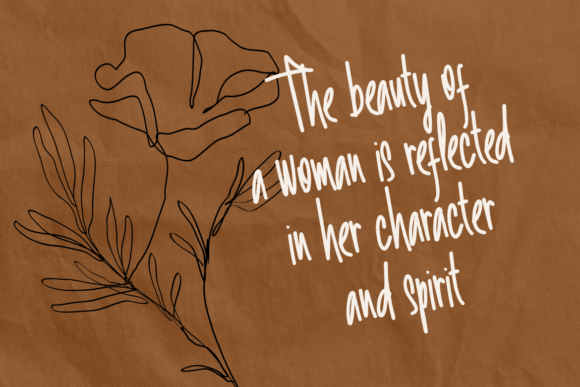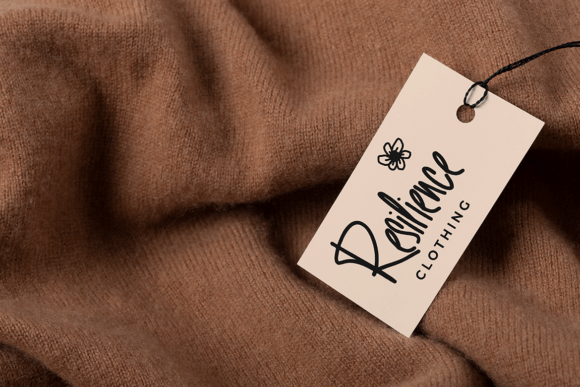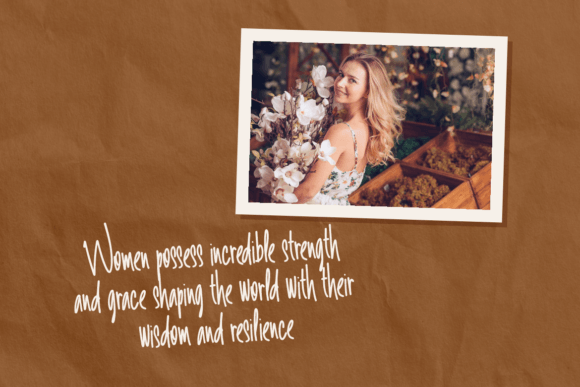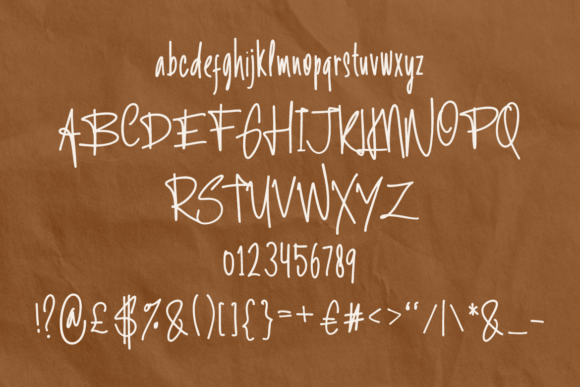
Introducing Glimmerbug Font: Elevate Your Designs with Elegance and Whimsy
In the world of typography, few fonts manage to capture the essence of luxury handwriting while also exuding a sense of modern charm. Glimmerbug Font is one such typeface that stands out for its unique blend of classic elegance and contemporary flair. Crafted with meticulous attention to detail, Glimmerbug brings a touch of personal charm to any project, making it an ideal choice for designers and crafters looking to elevate their creations.
The Essence of Glimmerbug: A Perfect Blend of Classic and Modern
Glimmerbug Font is characterized by its delicate monoline strokes, which are reminiscent of classic calligraphy. The font’s rounded edges, however, offer a modern twist that sets it apart from traditional typefaces. This blend of old and new makes Glimmerbug perfect for a wide range of design applications, from wedding invitations and boutique branding to movie titles and book covers.
One of the standout features of Glimmerbug is its versatility. The font’s elegant and sophisticated appearance makes it suitable for high-end branding and luxury packaging, while its cute scribble-like appearance adds an element of whimsy that is perfect for more playful designs. Whether you’re looking to create a sense of romance and elegance or a more modern and trendy vibe, Glimmerbug has got you covered.
Applications of Glimmerbug Font: Where Elegance Meets Whimsy
Glimmerbug’s unique characteristics make it an excellent choice for a variety of design projects. Here are some of the ways you can use Glimmerbug to elevate your designs:
- Wedding Invitations: Add a touch of romance and elegance to your wedding invitations with Glimmerbug’s delicate monoline strokes and rounded edges.
- Boutique Branding: Create a luxurious and high-end brand identity with Glimmerbug’s sophisticated appearance.
- Movie Titles: Add a touch of glamour and sophistication to your movie titles with Glimmerbug’s elegant and cursive appearance.
- Book Covers: Create a visually stunning book cover with Glimmerbug’s unique blend of classic and modern elements.
- Packaging: Elevate your packaging designs with Glimmerbug’s luxurious and high-end appearance.
Why Choose Glimmerbug Font?
So, why should you choose Glimmerbug Font for your next design project? Here are just a few reasons:
- Unique and Versatile: Glimmerbug’s blend of classic and modern elements makes it a unique and versatile font that can be used for a wide range of design applications.
- Elegant and Sophisticated: Glimmerbug’s delicate monoline strokes and rounded edges give it an elegant and sophisticated appearance that is perfect for high-end branding and luxury packaging.
- Easy to Read: Despite its elegant appearance, Glimmerbug is easy to read, making it perfect for body text and other applications where legibility is important.
- High-Quality: Glimmerbug is a high-quality font that is designed to deliver exceptional results in any design application.
In conclusion, Glimmerbug Font is a unique and versatile typeface that is perfect for designers and crafters looking to elevate their creations. With its blend of classic elegance and modern charm, Glimmerbug is suitable for a wide range of design applications, from wedding invitations and boutique branding to movie titles and book covers. Whether you’re looking to create a sense of romance and elegance or a more modern and trendy vibe, Glimmerbug has got you covered. So why wait? Download Glimmerbug Font today and start creating stunning designs that whisper tales of beauty and grace.